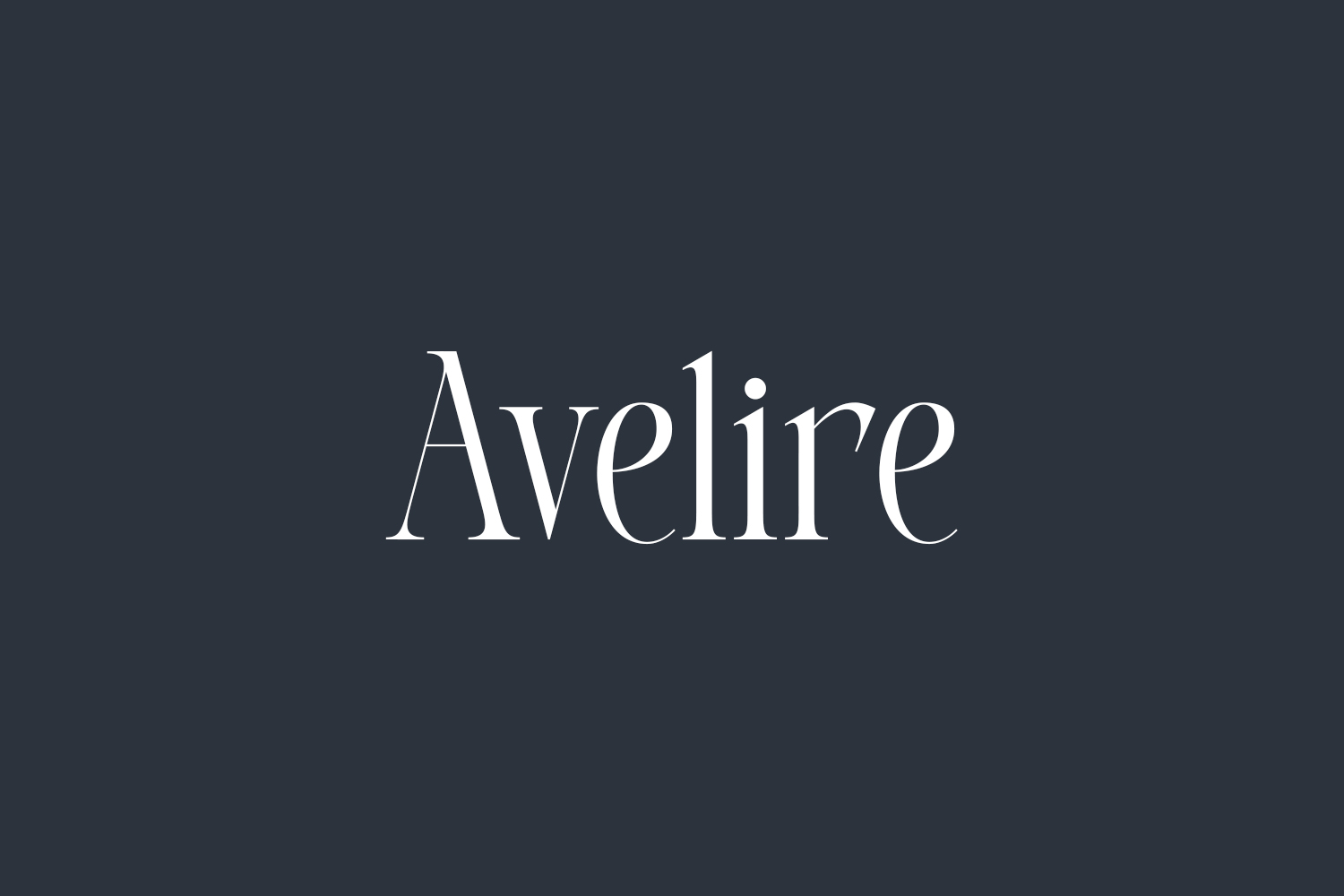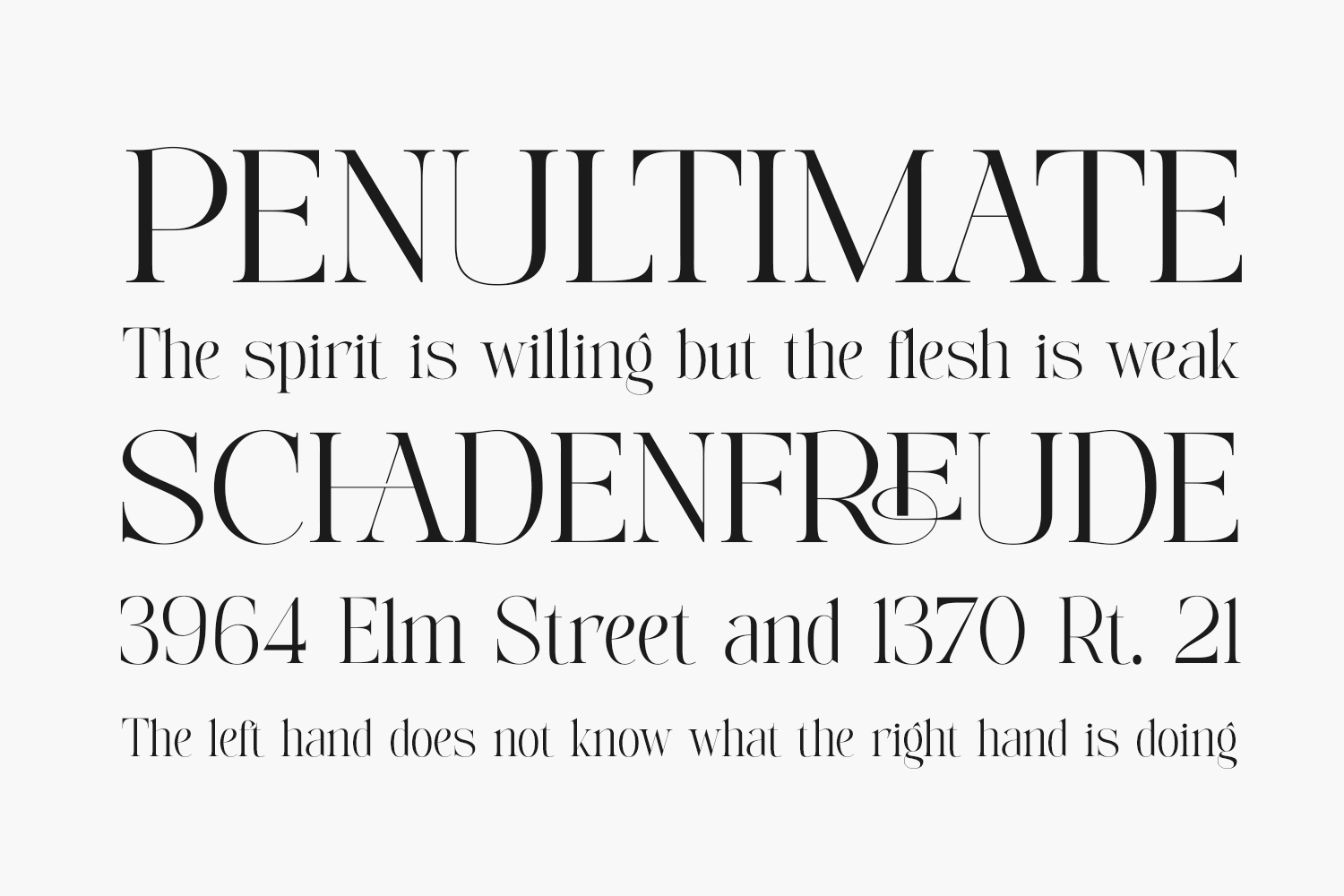
Introducing Avelire Free Font – a contemporary ligature font meticulously crafted for all your branding, logo, invitation, masthead, and beyond needs. Born from boundless creativity and thoughtful design, we’ve poured our imagination into bringing this font to life. Experience the seamless fusion of style and functionality with “Avelire” – the epitome of modern typographic elegance. Download the font for free if you need it for personal use or purchase the full version for commercial use.
Designed by ToniStudio